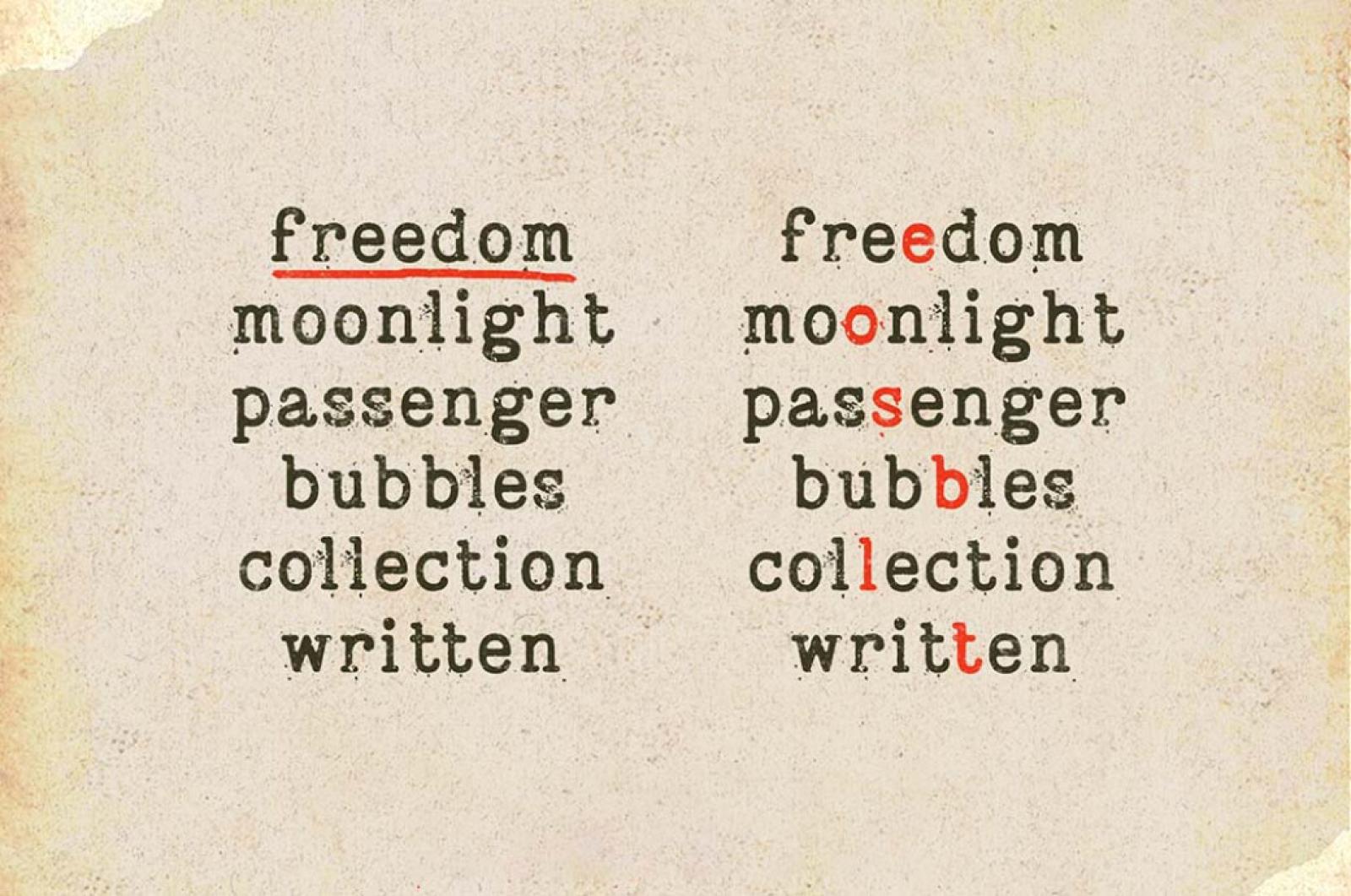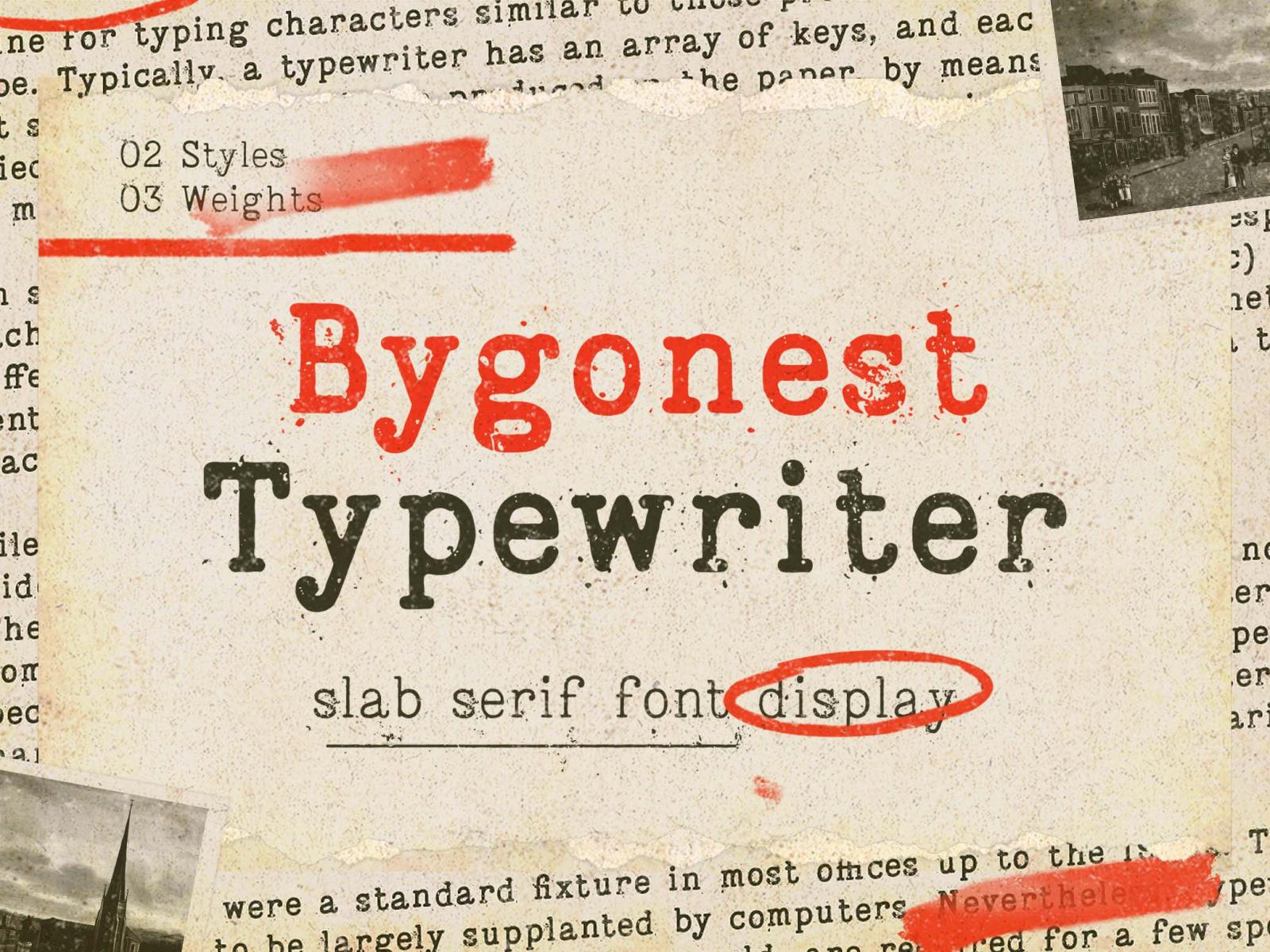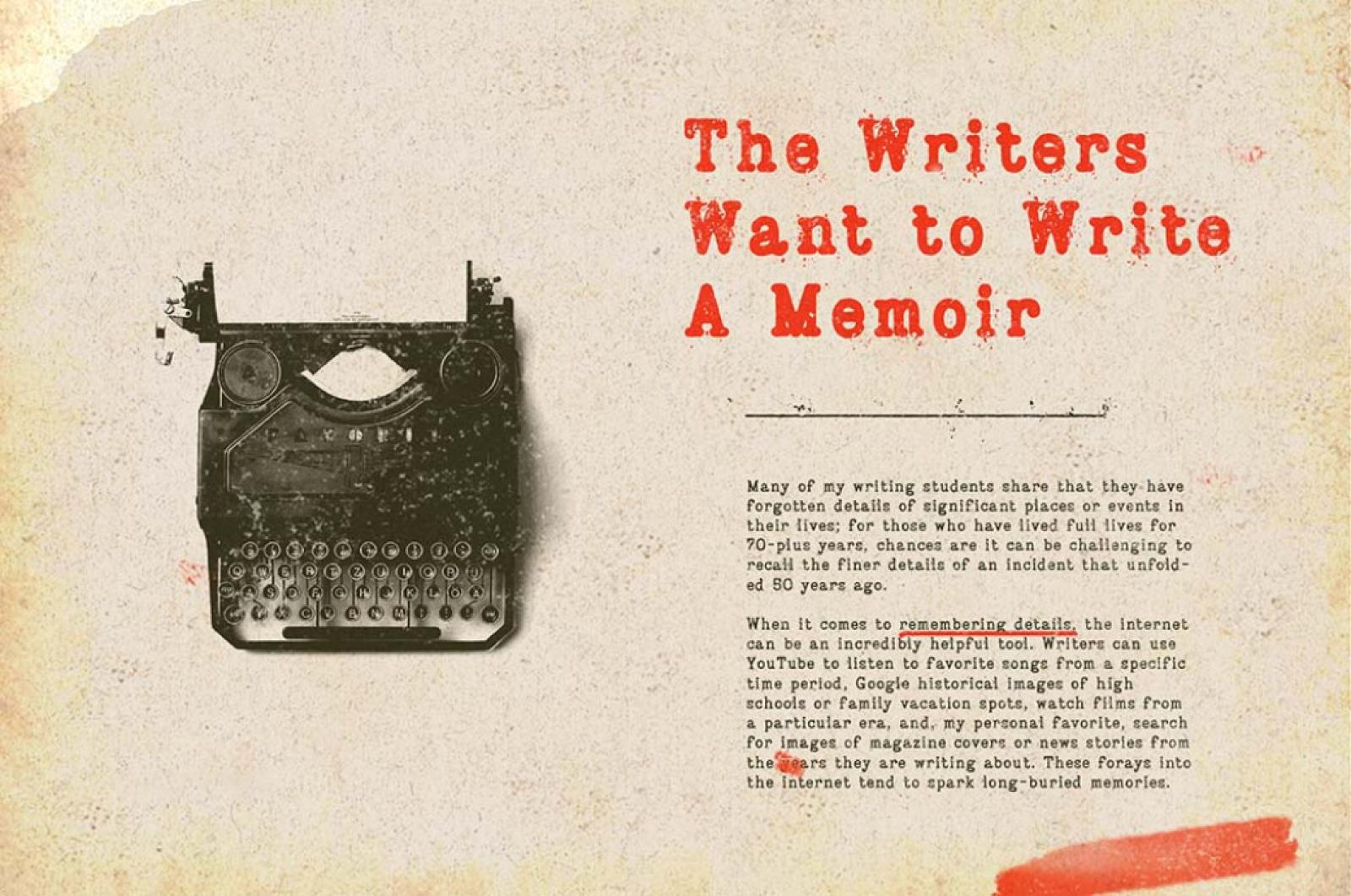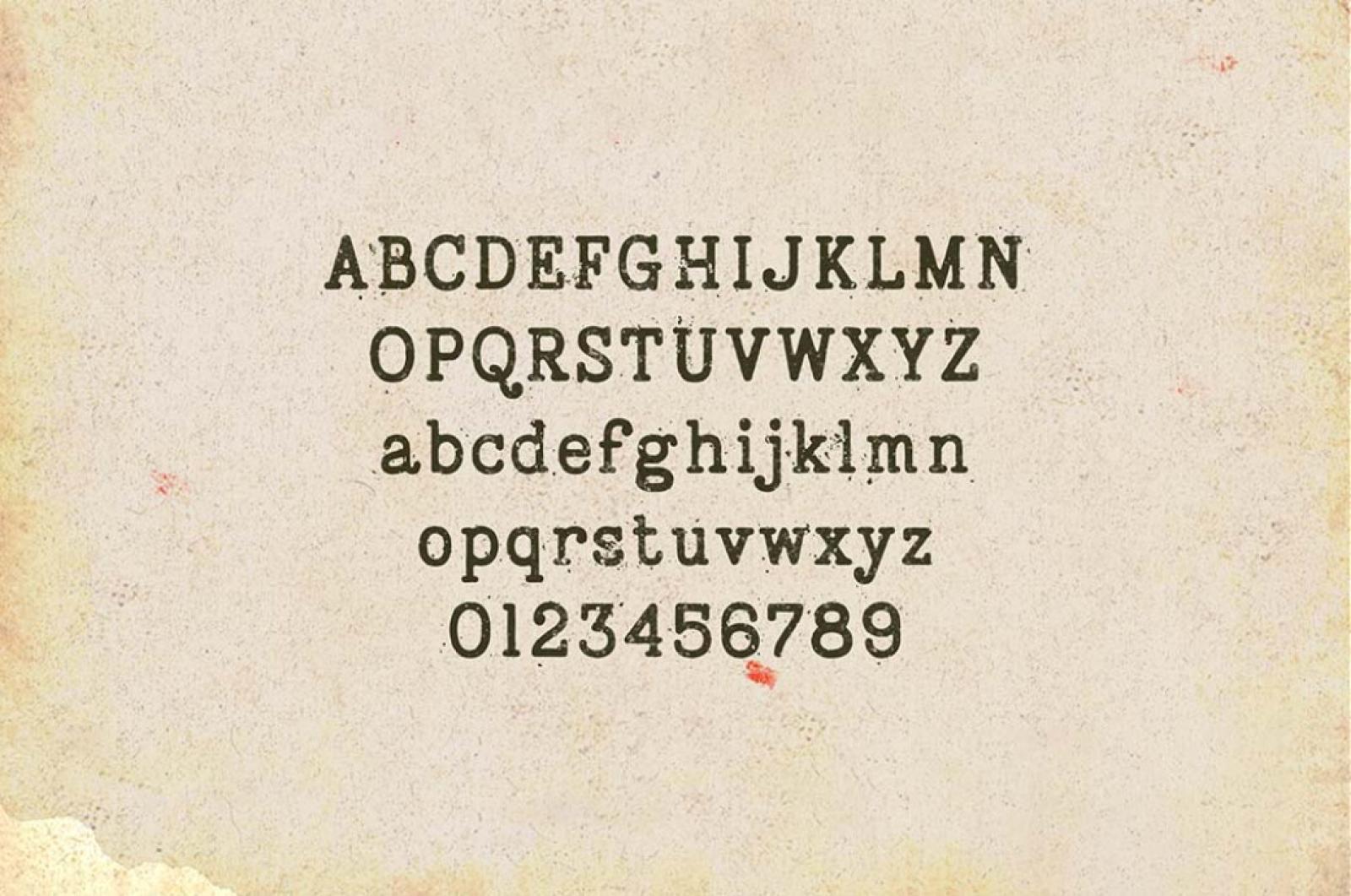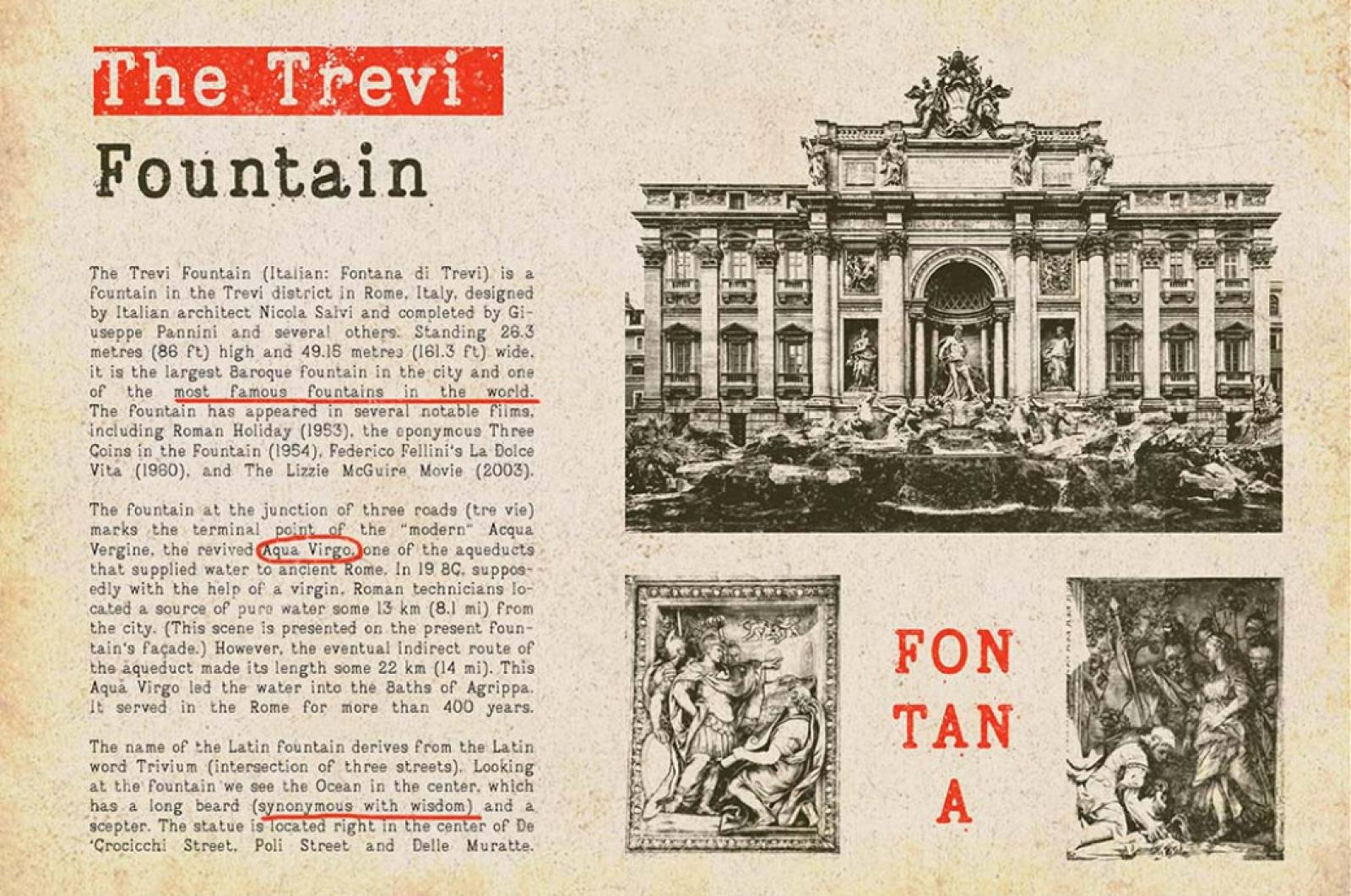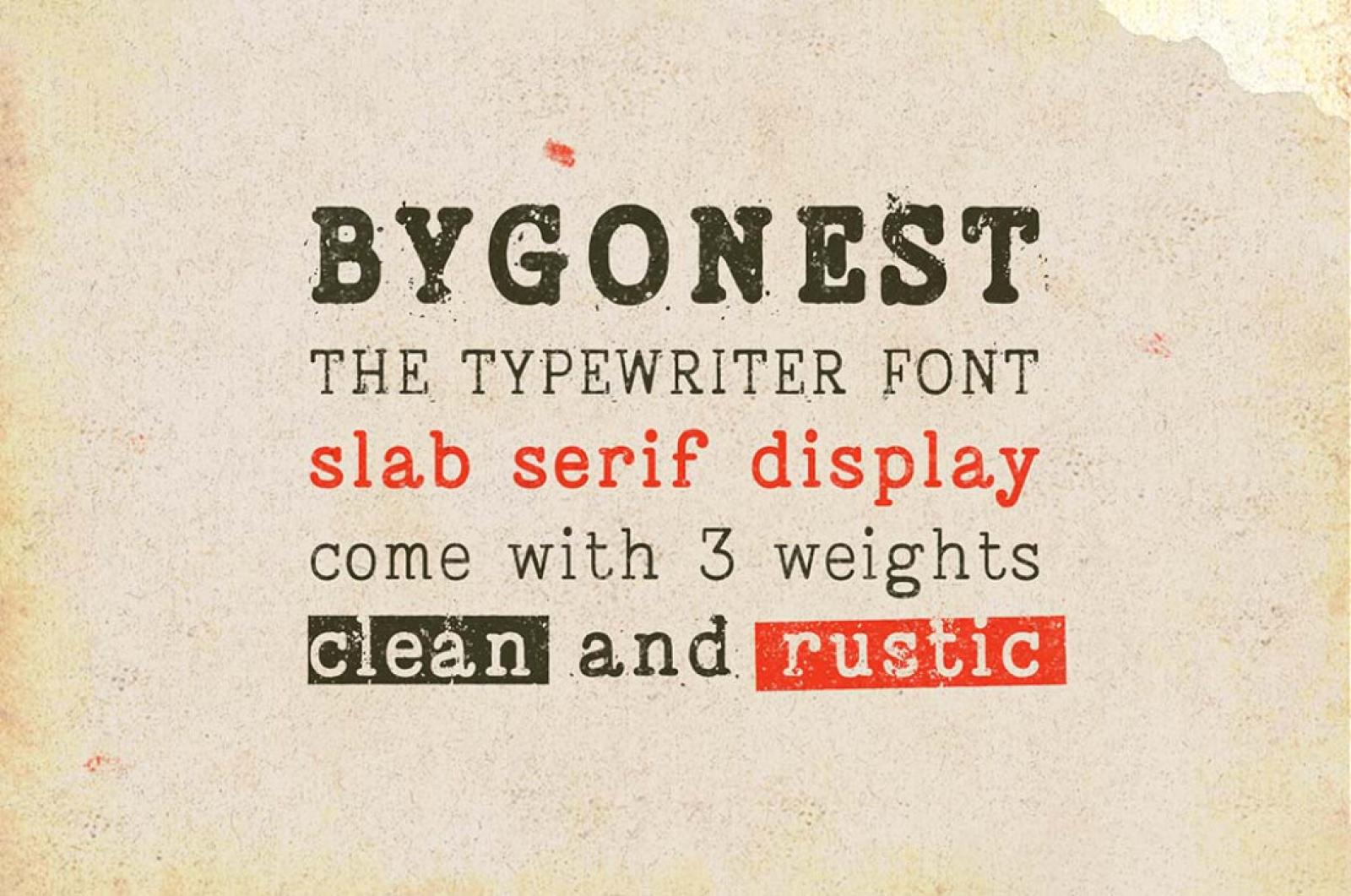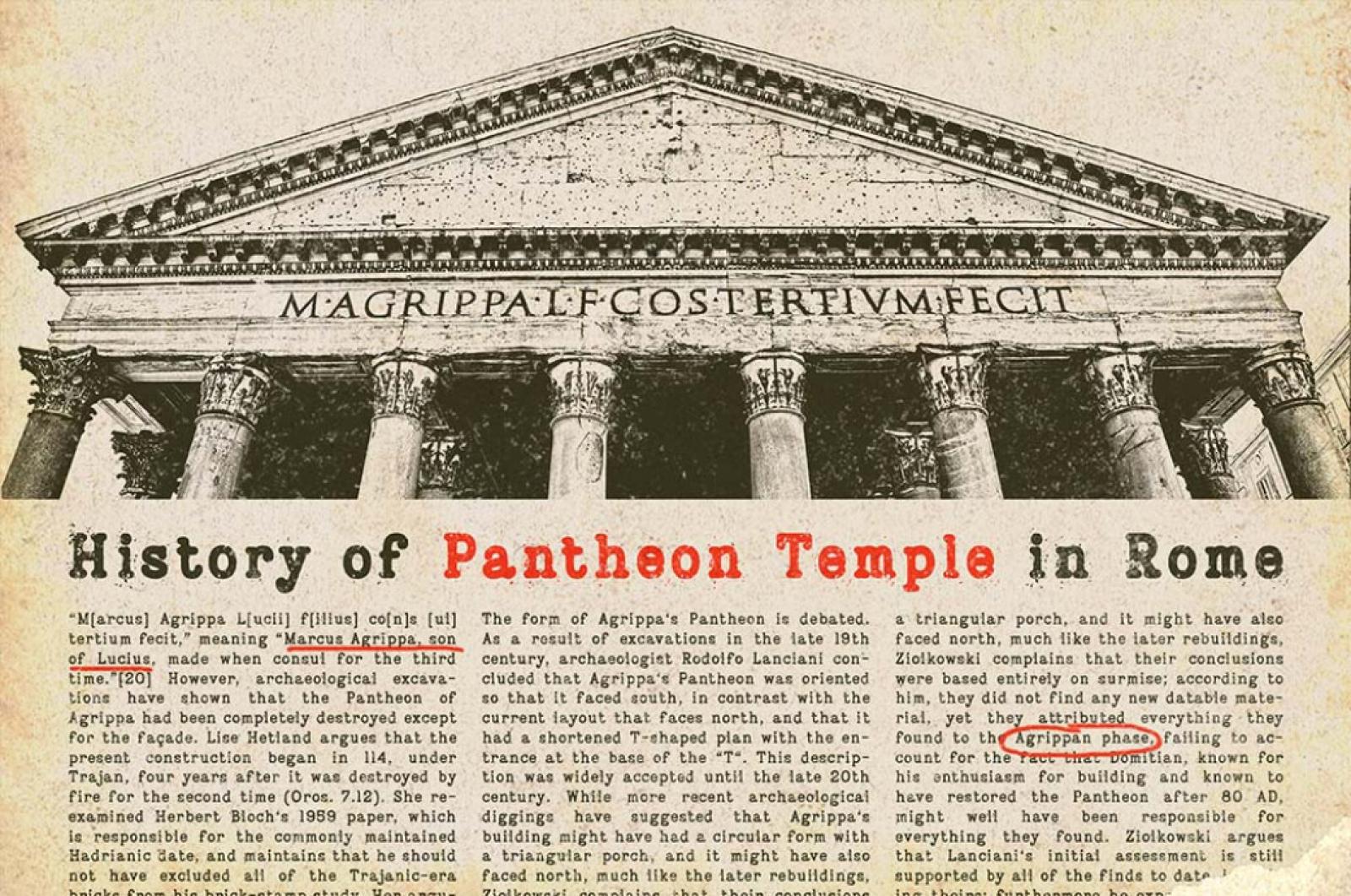
Bygonest Typewriter Font
The boisterous, tapping sound of a typewriter in action is a thing you recognize from the first second! Evoked vintage and rustic visions are not a coincidence: better bring them to life with this typewriter font.
The font is inspired by realistic old typewriter lettering. It comes in 2 styles (clean and rustic) and 3 weights (thin, regular, and bold). This font includes 1 set of alternates with different stamp textures, so you can combine the same 2 letters and not be boring. Bygonest might match the style of some designs to be applied such as the newspaper, magazine, quotes, logotype, poster, packaging, branding, and more custom design ideas!